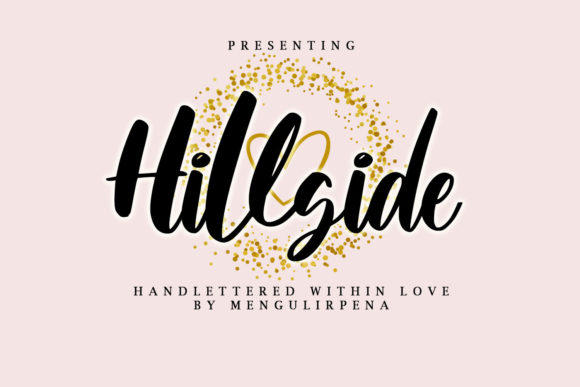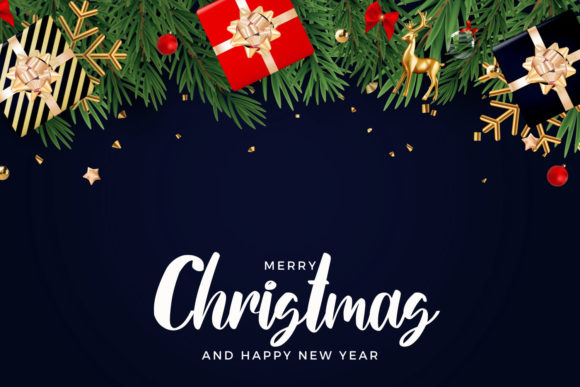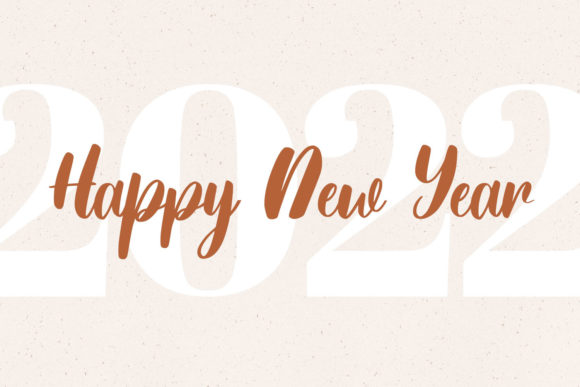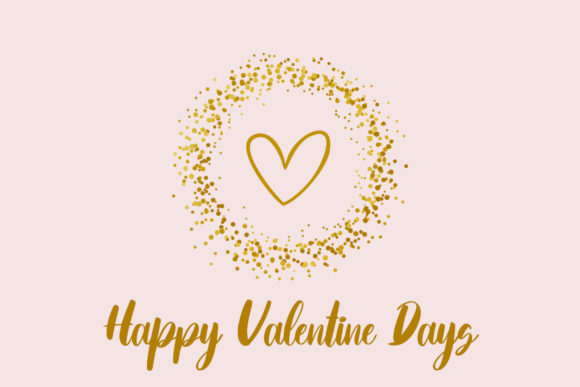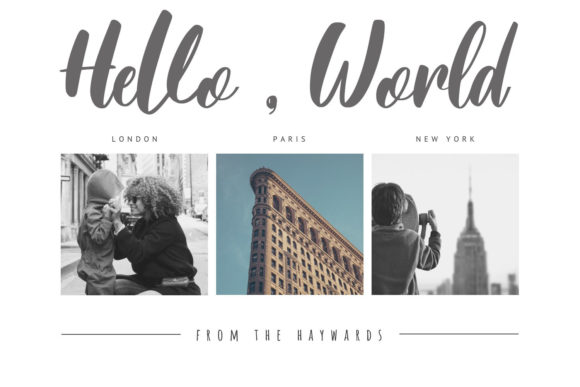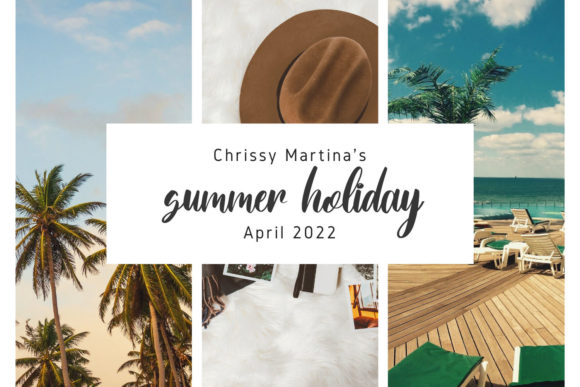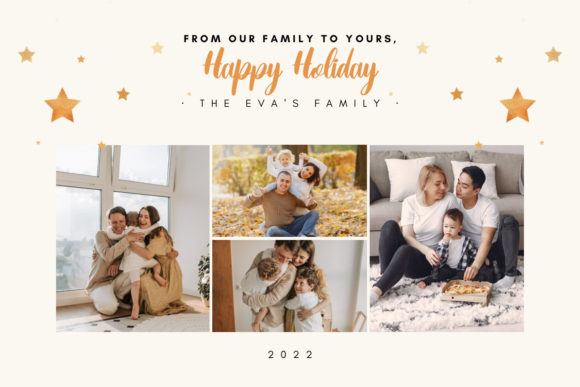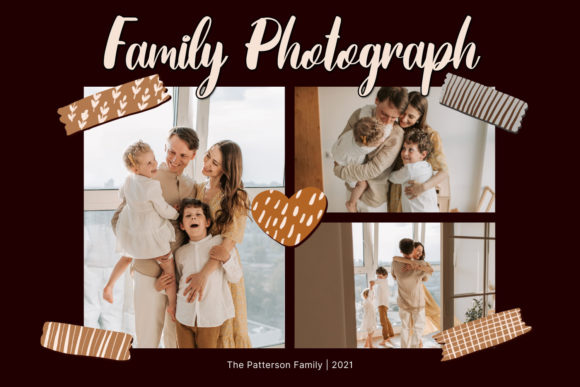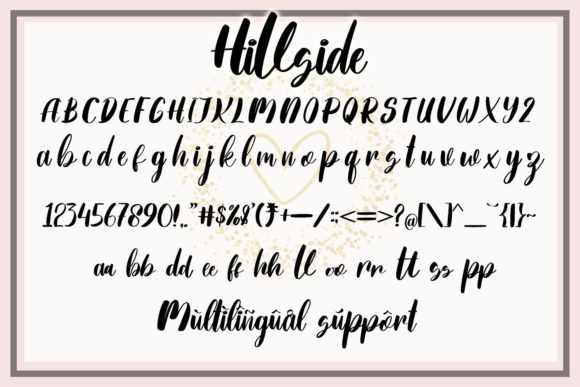
Hillside Font
About Hillside Font
Hillside is a trendy paint brushed script font. It can easily be matched to an incredibly large set of projects, so add it to your creative ideas and notice how it makes them stand out!